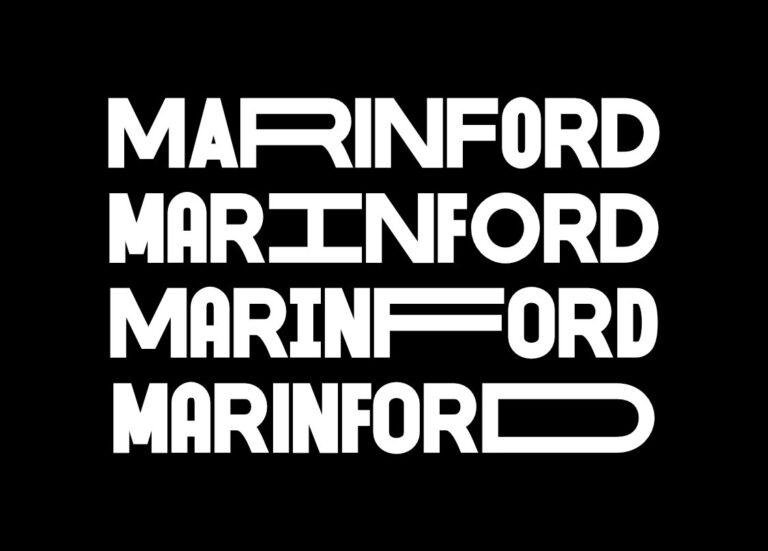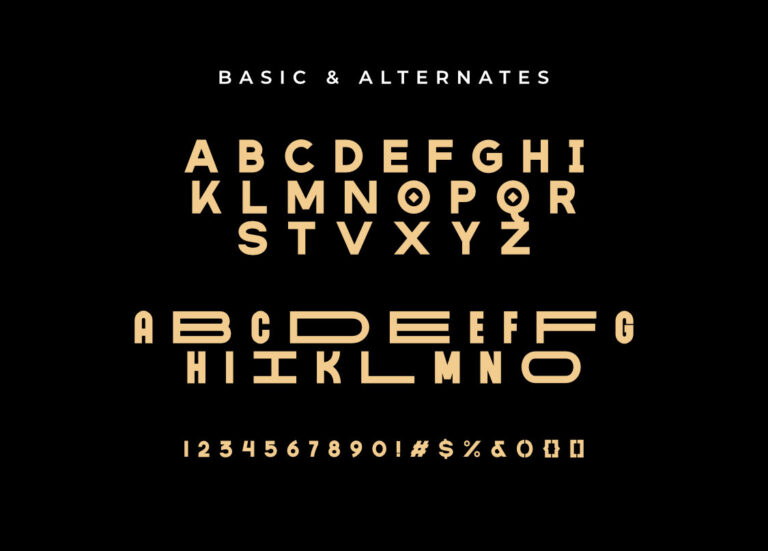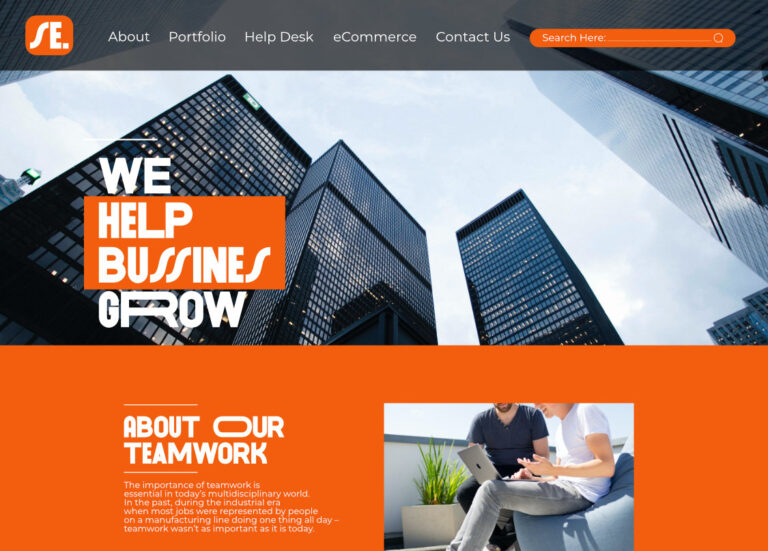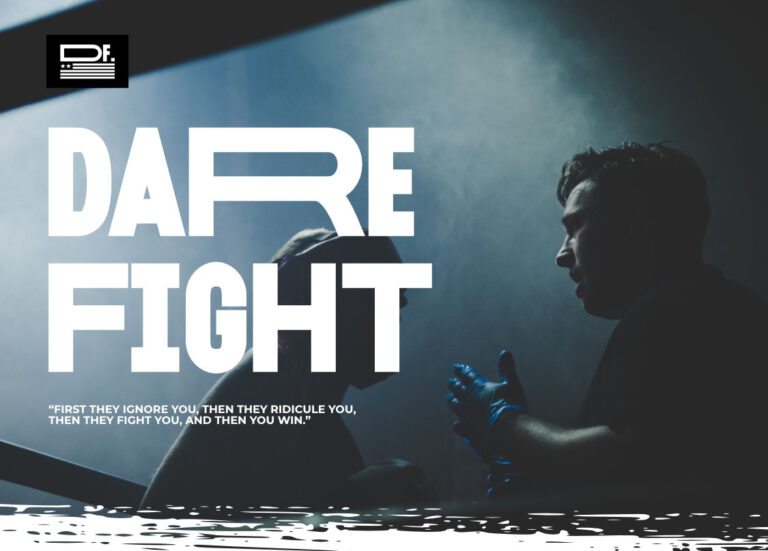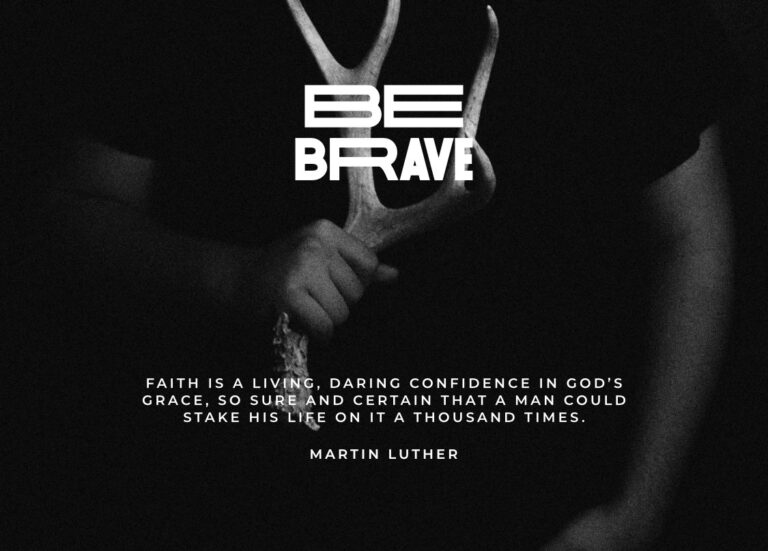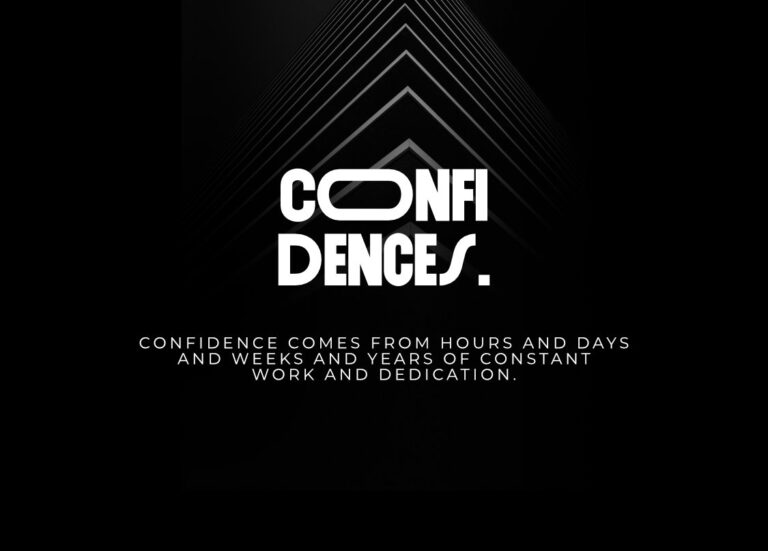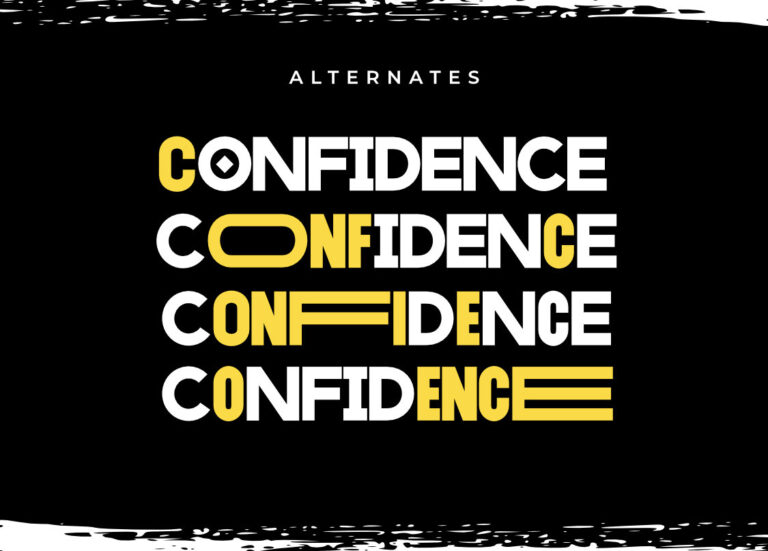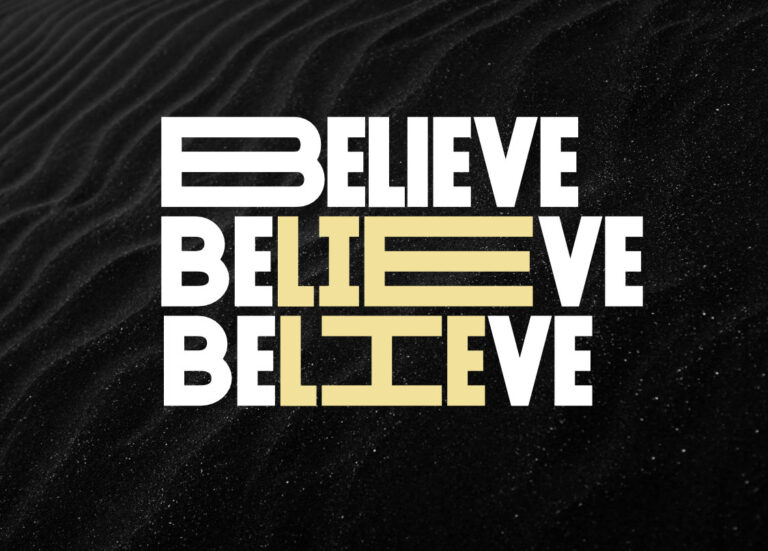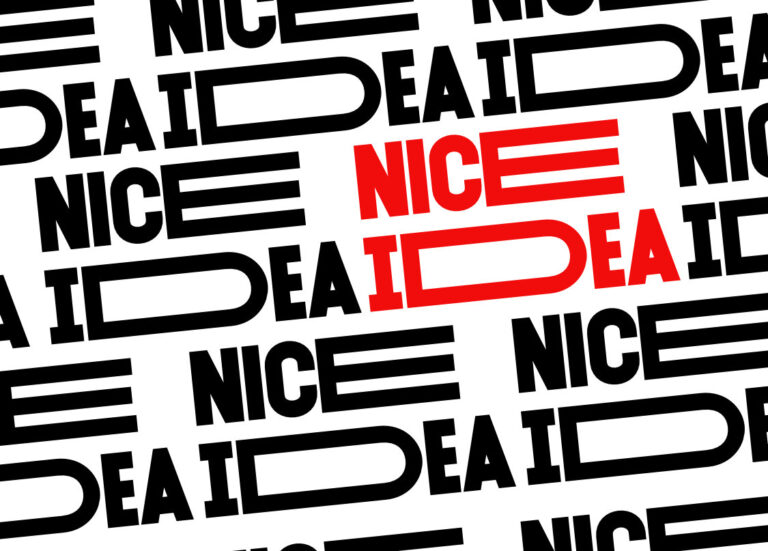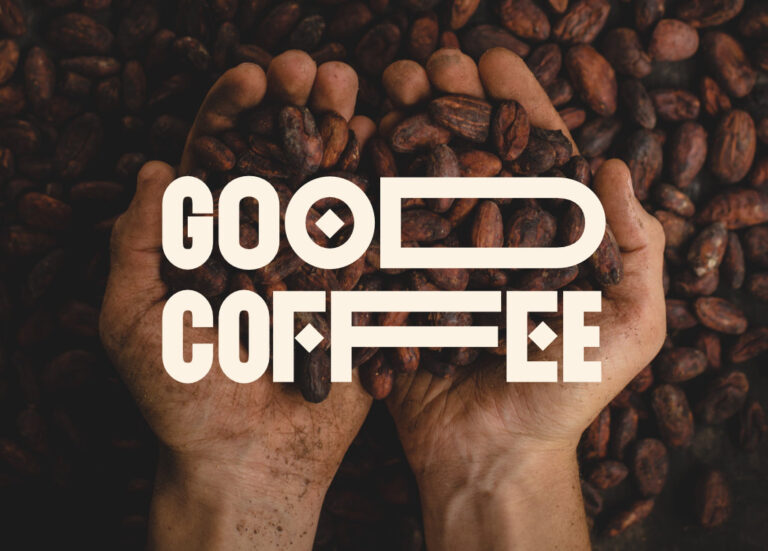
Marinford is a bold blend of modern and vintage—a logo tech font with serious attitude and timeless style. Designed for creative branding and standout logo design, it brings together clean, minimal lines with subtle grunge and retro flair. Whether you’re building a high-impact brand, a fashion-forward label, or an edgy tech innovation, Marinford has the versatility to make your vision shine.
Perfect for engineering firms, futuristic startups, and bold fashion houses alike, Marinford fuses technical precision with elegant grit. It’s both sharp and nostalgic—ideal for anyone who wants their logo or design to feel modern, yet rooted in a strong vintage vibe.
From high-end branding to creative technology concepts, Marinford is your go-to font for bold, stylish, and forward-thinking design.
- Alternate Characters